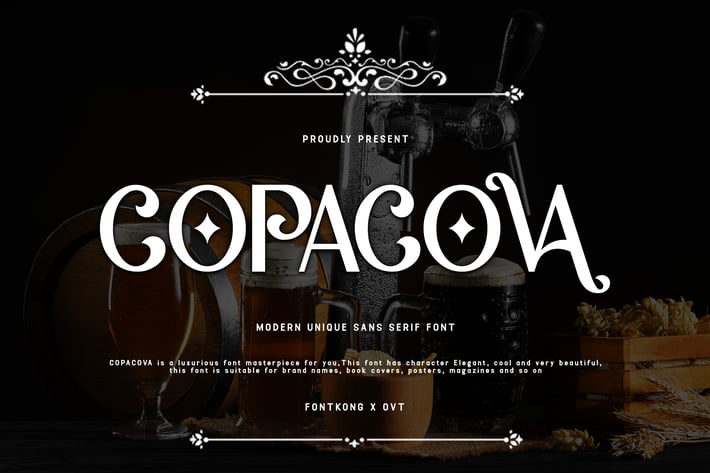
Copacova - A Modern Unique Sans Serif Font
Copacova is a distinctive and contemporary sans serif font designed to bring a fresh and unique look to your design projects. With its clean lines and unconventional shapes, Copacova is perfect for modern branding, editorial design, web typography, and digital displays. This font combines minimalist aesthetics with a touch of creativity, ensuring your work stands out with a modern and innovative vibe.
Crafted with meticulous detail, Copacova features unique characters that offer excellent readability and visual appeal. Its clean and versatile design makes it ideal for both headlines and body text, providing a harmonious and polished look across all your visual communications. The font’s adaptability allows it to seamlessly integrate into various design contexts, from digital platforms to printed materials.
Elevate your design projects with Copacova, a font that embodies the perfect blend of modernity and uniqueness. Its distinctive style and adaptability make it an essential addition to any designer’s toolkit for creating standout and contemporary visuals. Enhance your work with Copacova and experience the versatility of modern sans serif typography.
Copacova is a distinctive and contemporary sans serif font designed to bring a fresh and unique look to your design projects. With its clean lines and unconventional shapes, Copacova is perfect for modern branding, editorial design, web typography, and digital displays. This font combines minimalist aesthetics with a touch of creativity, ensuring your work stands out with a modern and innovative vibe.
Crafted with meticulous detail, Copacova features unique characters that offer excellent readability and visual appeal. Its clean and versatile design makes it ideal for both headlines and body text, providing a harmonious and polished look across all your visual communications. The font’s adaptability allows it to seamlessly integrate into various design contexts, from digital platforms to printed materials.
Elevate your design projects with Copacova, a font that embodies the perfect blend of modernity and uniqueness. Its distinctive style and adaptability make it an essential addition to any designer’s toolkit for creating standout and contemporary visuals. Enhance your work with Copacova and experience the versatility of modern sans serif typography.